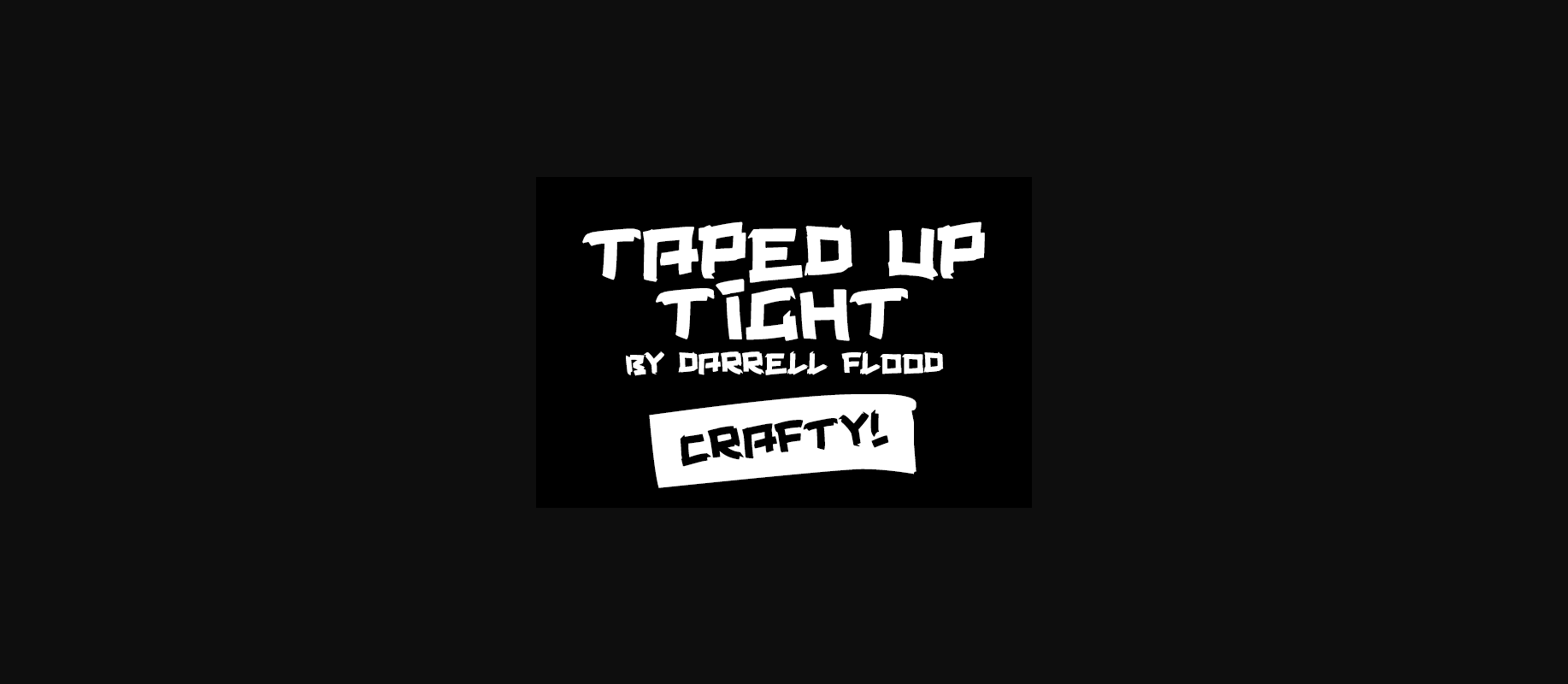
Taped Up Tight Font
About Taped Up Tight Font
Taped Up Tight is an unusual and fun decorative font. Mimicking the look of using tape for word formation, taped up is a great option to add an eclectic twist to your designs.